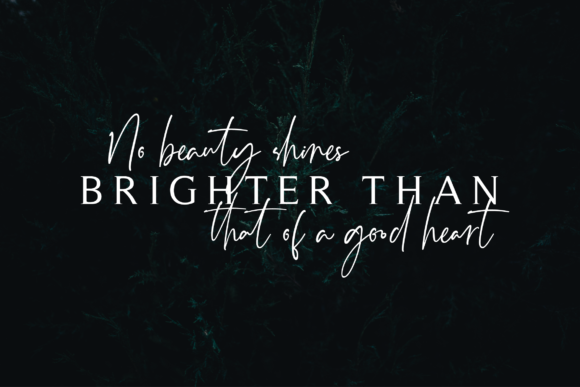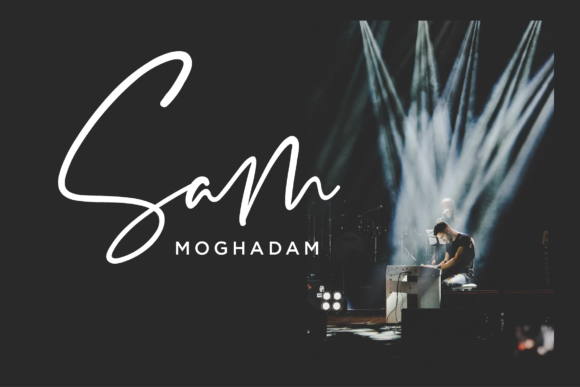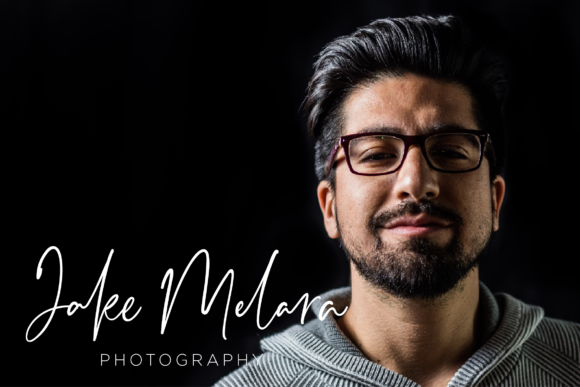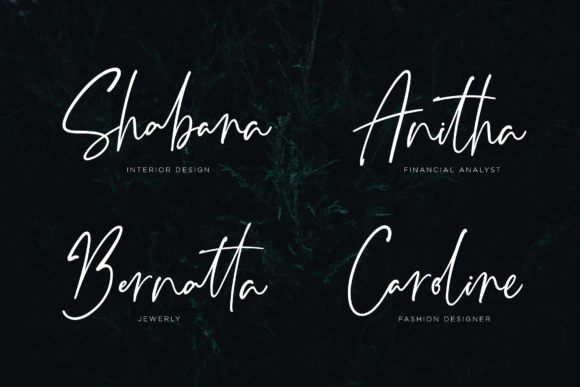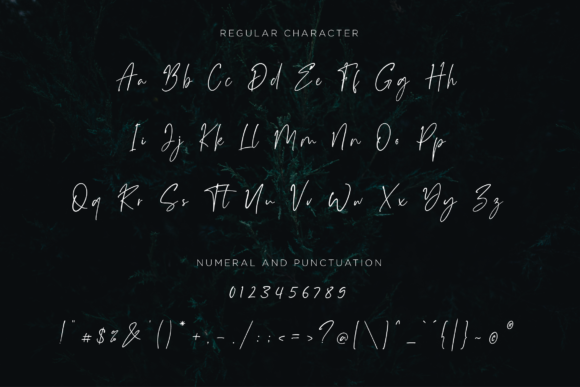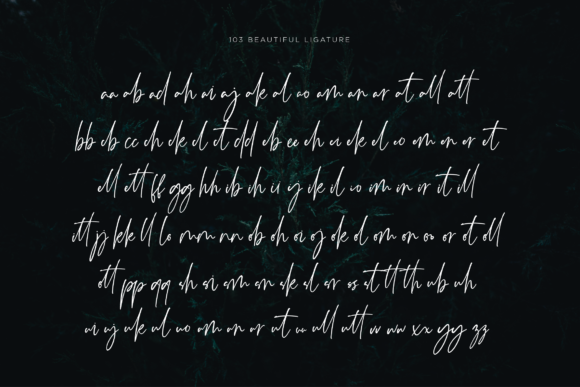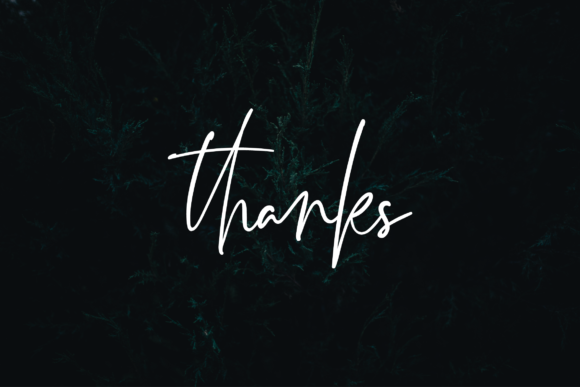
Monatta Font
About Monatta Font
Monatta is a charming and authentic handwritten font with a bold feel. It will turn any design project into a true stand out!